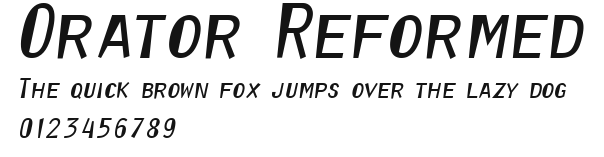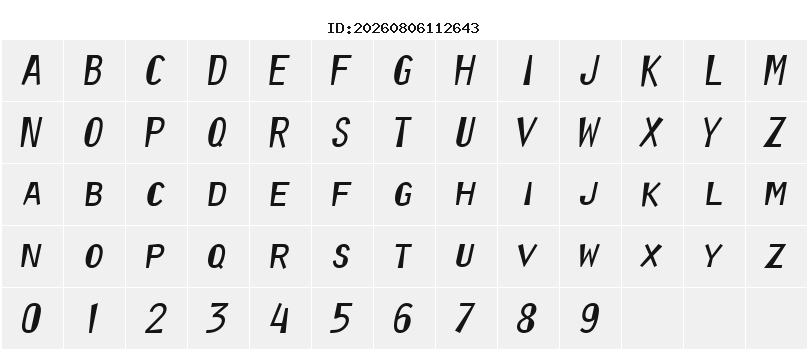
Orator Reformed Preview
• Font Name: Orator Reformed
• Full Font Name: Orator Reformed
• Designer: Barbara Dubi
About Orator Reformed.ttf
Orator Reformed.ttf is a modern, elegant sans-serif font designed for ultimate readability and visual harmony. Perfect for branding, headlines, web design, and print materials.